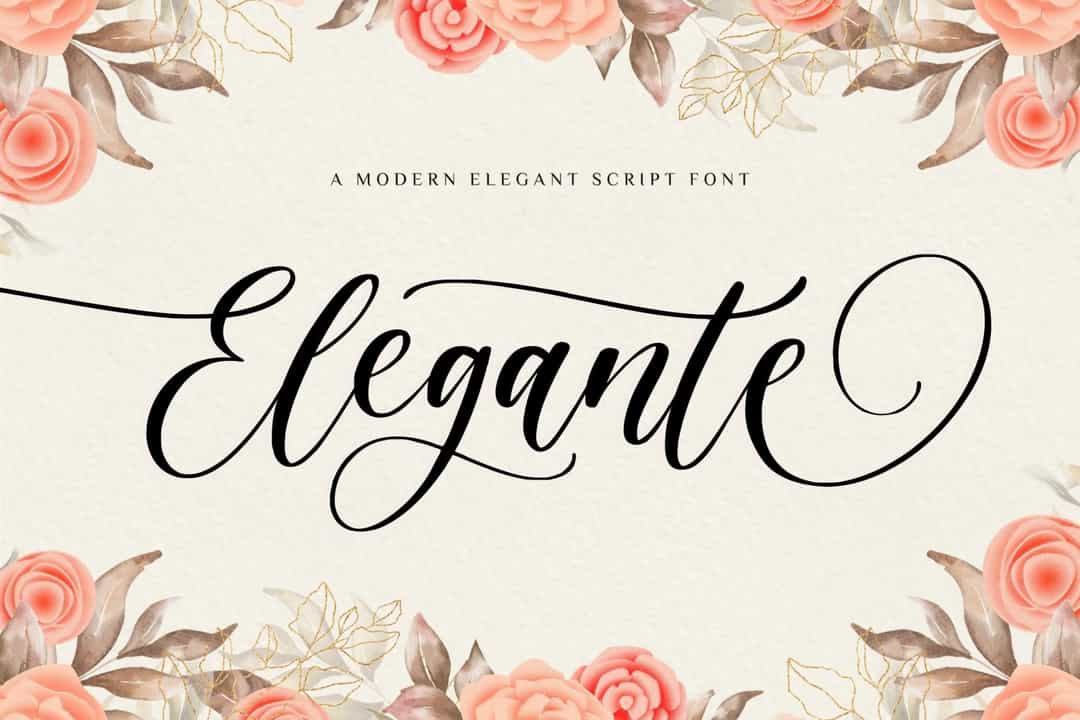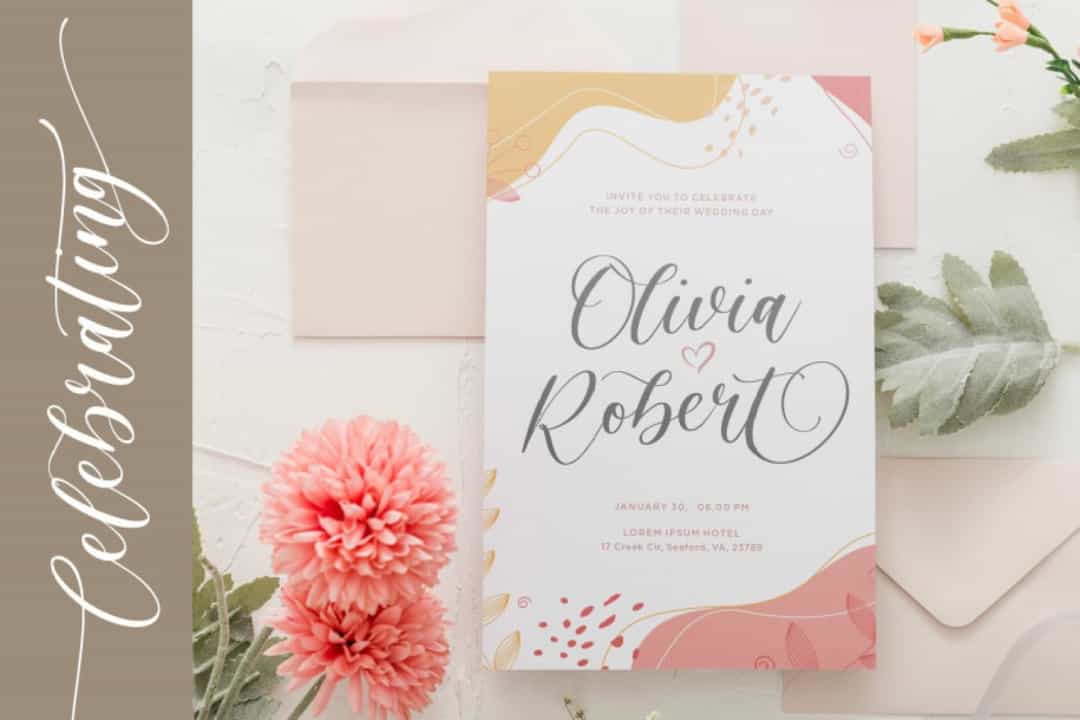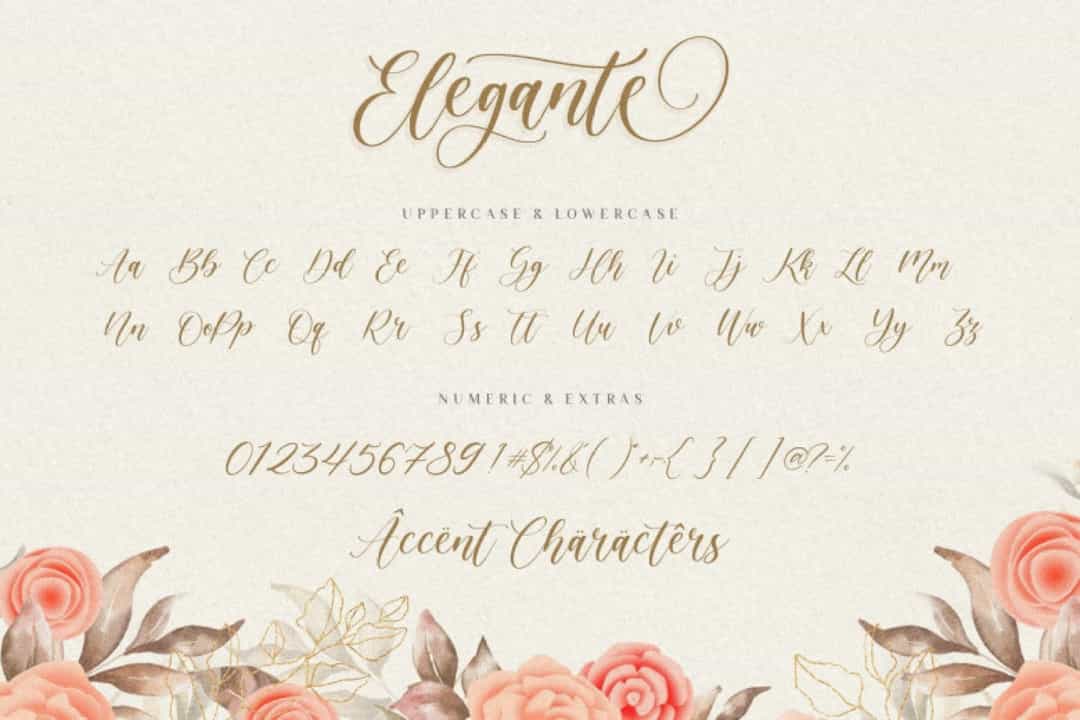
Elegante is a beautiful quality calligraphy font that is ideal for use in creating logos, packaging as well as product packaging projects, magazine or wedding invitation, or a simple writing of words on a canvas.